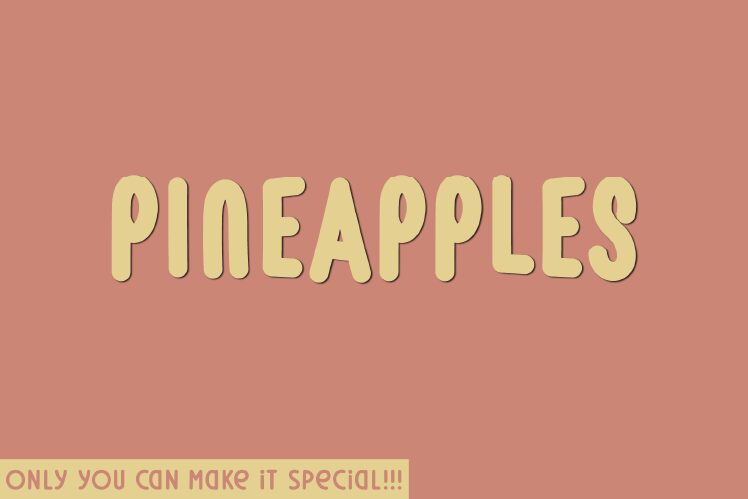
Pineapples font, crafted by Hanna Bie of Hanna Bie Creative Studio, exudes a bold, handwritten essence with a distinctly condensed style. This eye-catching font seamlessly blends artistic flair with readability, making it perfect for projects that require a touch of personality and charm.
Ideal for branding, logo design, invitations, and playful headlines, Pineapples offers a dynamic yet approachable aesthetic. Its unique characteristics ensure that it stands out in various creative contexts while maintaining clarity and boldness.